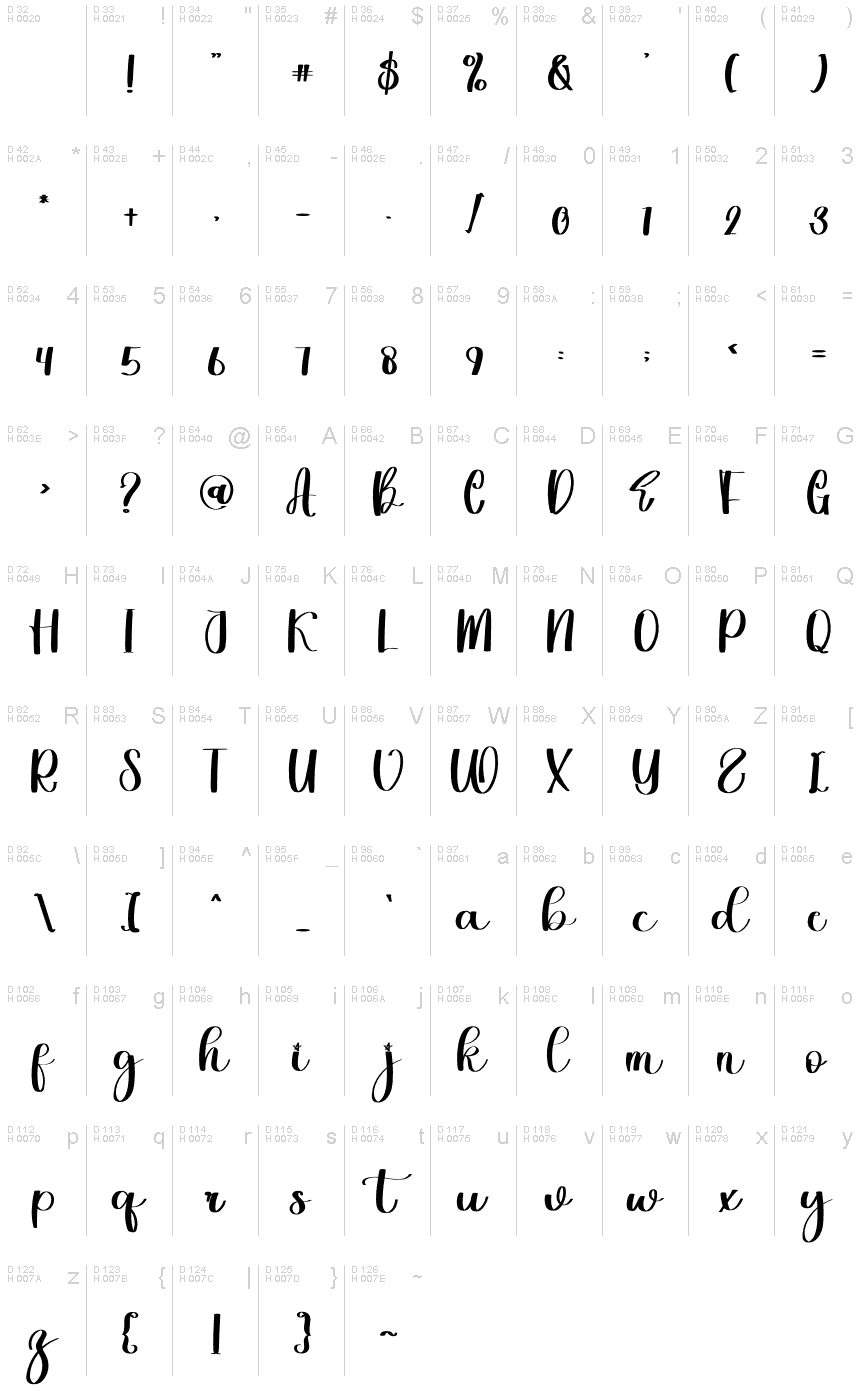
Wedding Christmas
Welcome to the beautiful world of Wedding Christmas font by FreshtypeINK! This stunning calligraphic font is a light weight typeface, perfect for adding a romantic touch to wedding invitations, holiday cards and other festive projects.